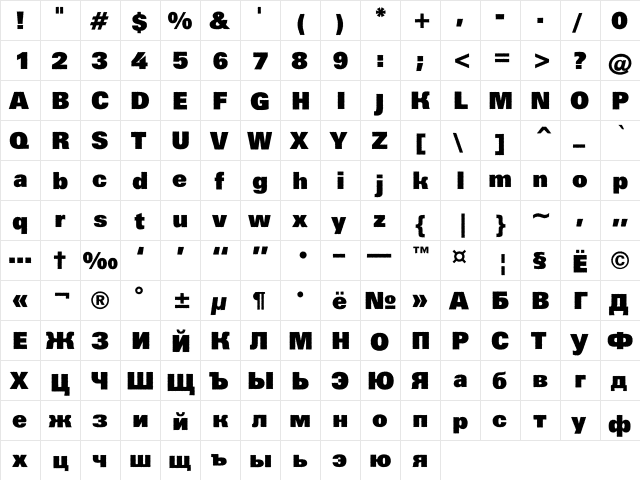
a_GroticRoghXBlack Normal
Design Context for a_GroticRoghXBlack Typeface
a_GroticRoghXBlack offers clean, dependable letterforms without strong stylistic allegiance, making it a practical choice for designers who need flexibility.